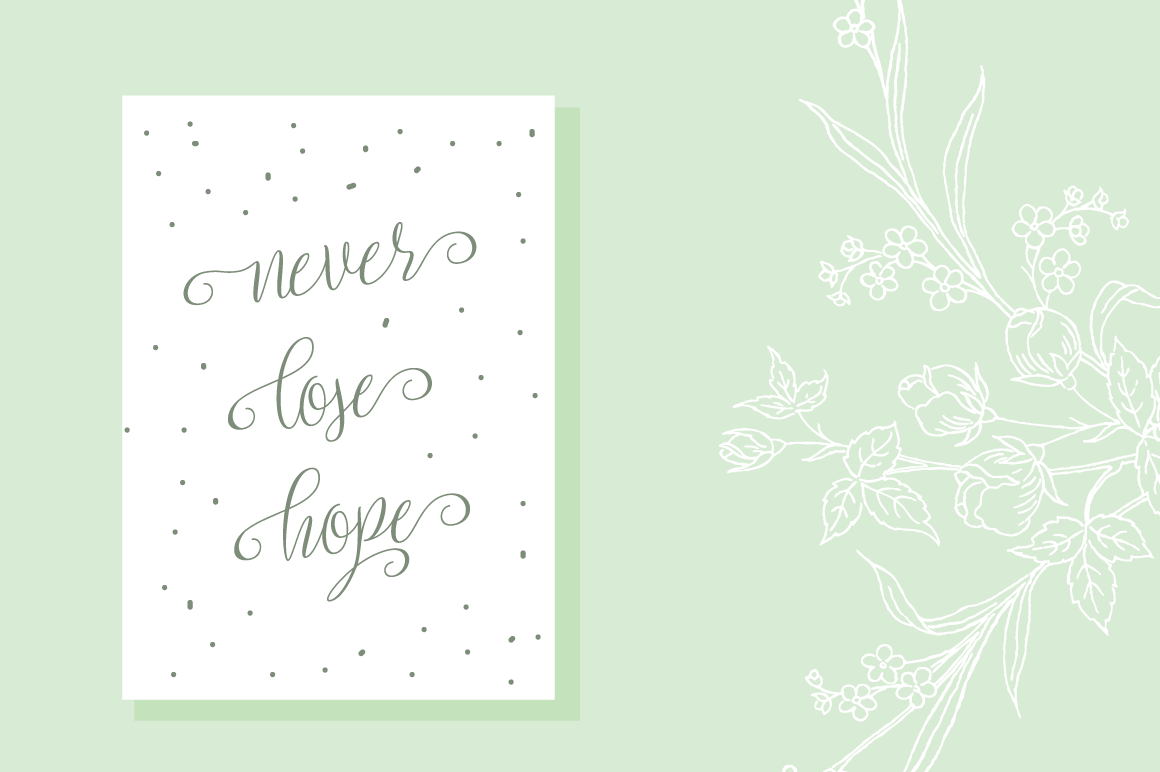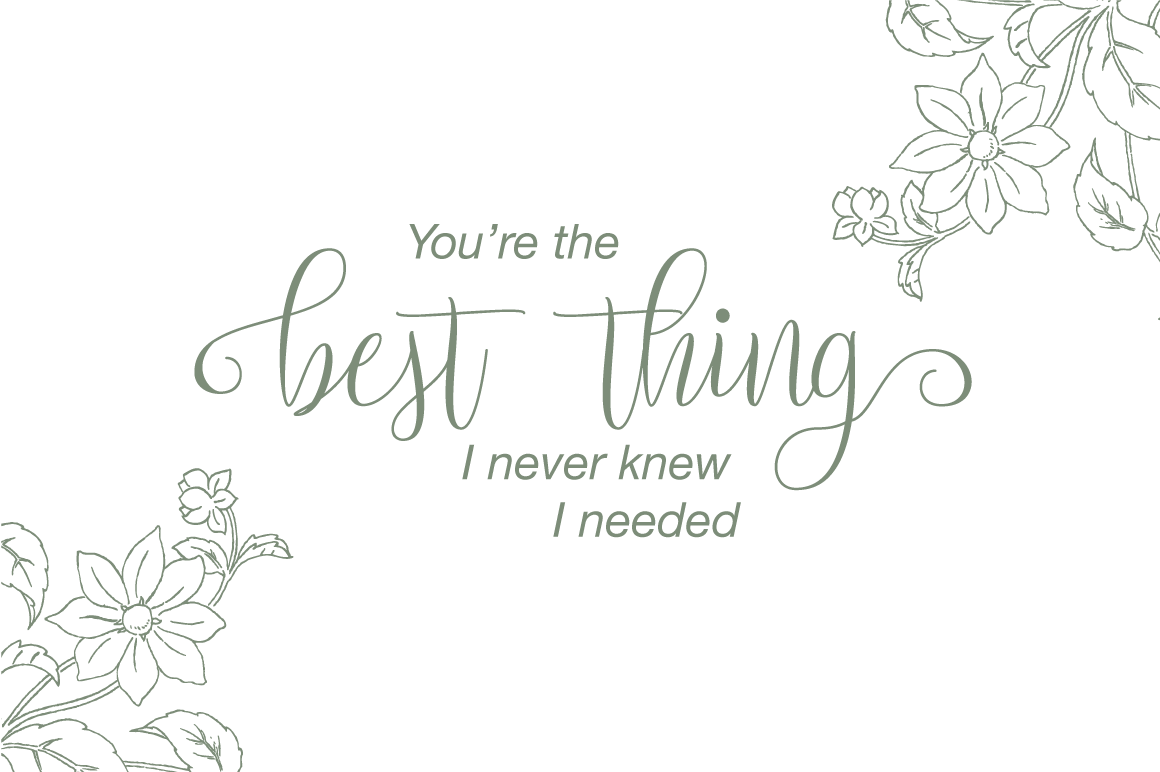
Introducing Setta Script Free Typeface
Setta Script Free Typeface is a new modern calligraphy Typeface Fonts collection from Ianmikraz studio, combines from copperplate to contemporary typeface, classic, beauty and elegant touch.
Setta Script Free Typeface features 244 glyphs and 69 alternate character contain with opentype features. Stylistic Alternates, Standart Ligature and more.You can access all those alternate characters by using OpenType savvy programs such as Adobe Illustrator, Adobe InDesign and CorelDraw X6-X7.